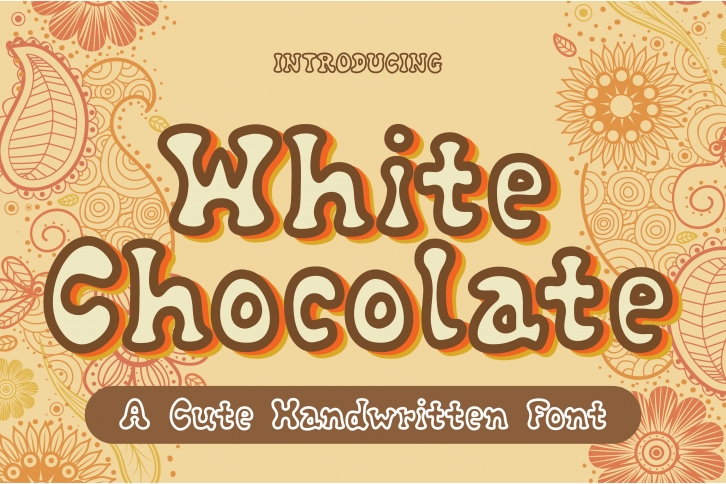
White Chocolate is a cute retro handwritten display font. Its natural and unique style makes it incredibly fitting to a large pool of designs. Have fun with this beautiful font and explore its endless variations.